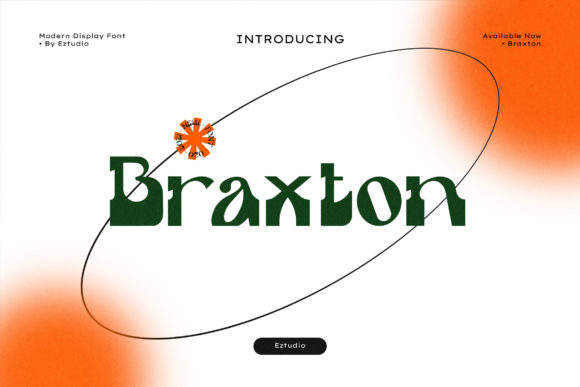
The Braxton Font: A Trendy Serif for Modern Designs
I still remember the frustration of working on a logo design project, only to get stuck on finding the perfect font. My client wanted something classy, modern, and unique, but I just couldn’t seem to find the right fit. That’s when I stumbled upon the Braxton font, and it instantly became my go-to for a wide range of design projects. In this article, I’ll share my experience with Braxton, its features, and how to make the most of it in your designs.
An Honest Review of Braxton Font
So, what makes Braxton special? Here are some things I love about this font:
- ✨ Unique lettering style: Braxton has a distinctive serif font style that’s both trendy and classy.
- ✅ Versatility: It can be used for logos, branding, invitations, stationery, wedding designs, social media posts, and more.
- ✅ Modern look: The font has a clean and modern aesthetic that will elevate your designs.
However, no font is perfect, and Braxton has a few quirks:
- 🤔 Limited use in body text: Due to its unique lettering style, Braxton might not be the best choice for long body text.
- ⚠️ Glyph compatibility: Some glyphs or special characters might not work well with certain software or platforms.
- Experiment with OpenType features, such as stylistic alternates, to add some personality to your text.
The Story Behind Braxton Font
While I couldn’t find any information on the exact design process, I like to imagine that Braxton was created by a team of designers who wanted to craft a font that’s both modern and timeless. They drew inspiration from classic serif fonts, adding a unique twist to create something fresh and exciting.
| Font Name | Braxton Font |
| Author | eztudio |
| What type of projects is Braxton suitable for? | Braxton is perfect for logos, branding, invitations, stationery, wedding designs, social media posts, and more. |